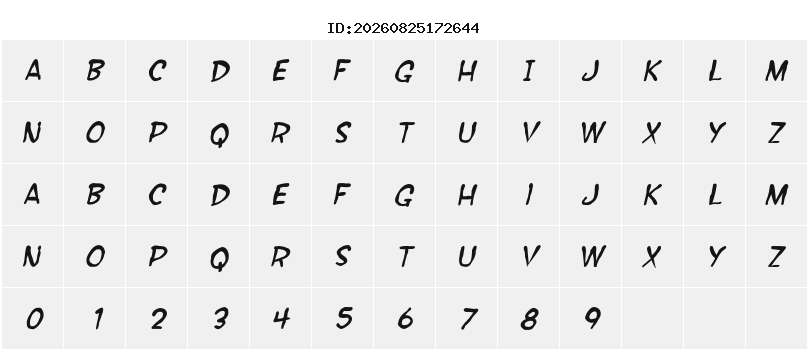
SF Wonder Comic Blotch Preview
• Font Name: SF Wonder Comic Blotch
• Full Font Name: SF Wonder Comic Blotch Italic
• Designer: ShyFonts Type Foundry
About SF Wonder Comic Blotch.ttf
SF Wonder Comic Blotch.ttf is a modern, elegant sans-serif font designed for ultimate readability and visual harmony. Perfect for branding, headlines, web design, and print materials.